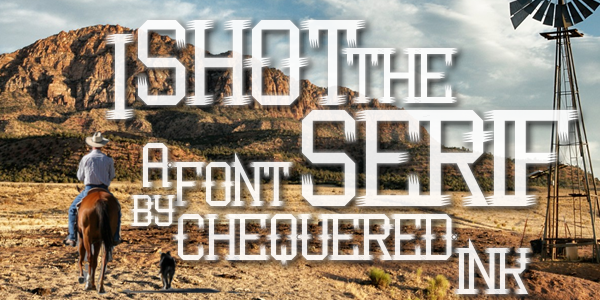
• Totally not just made because the name popped up in my head, and wouldn't leave it until I had made a font with that wordplay for a title. No ma'am.
Just *LOL*  Love those serifs, they have a wonderfully shredded look to them, like someone/something tried to scrape/scratch their way out or away from it :) Or the fabric was shredded by that famous shot ? The  song's great, too;)